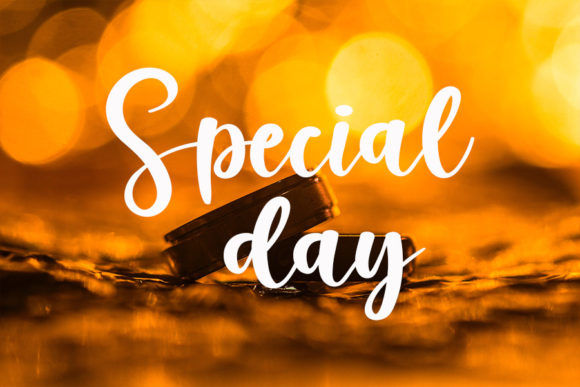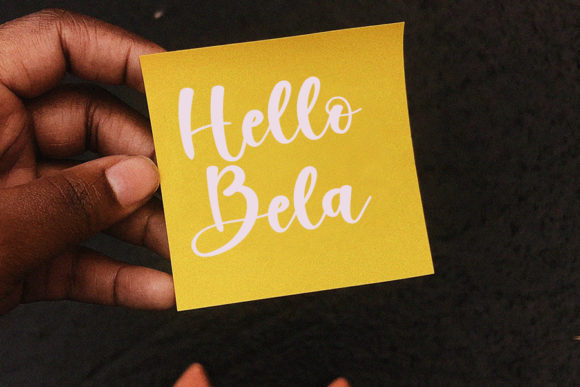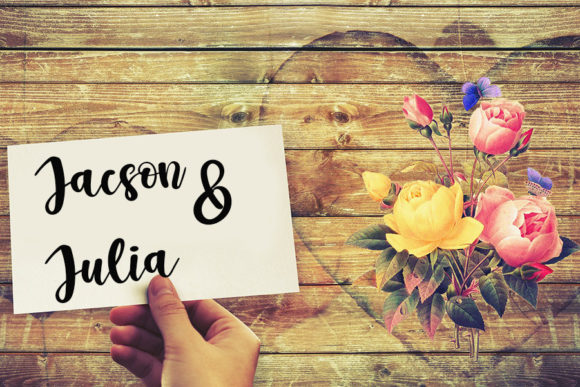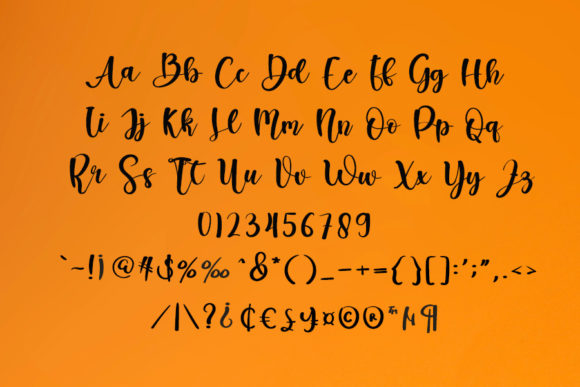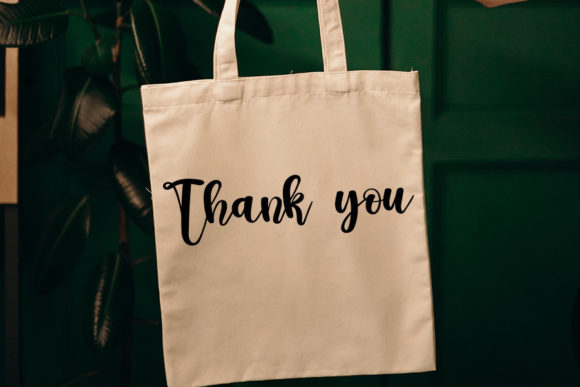
The Perfect Match for Your Next Design Project
There’s nothing quite like the thrill of discovering a new font that sparks your creativity. It’s that moment when the perfect combination of style and functionality comes together, and suddenly, your design projects start to feel like a dream. You know, the kind of moment when you think, “This is it! This is the one!” For designers, finding that perfect font can be a game-changer, and that’s exactly what the Honeymoon Font aims to be.
With its unique blend of classic calligraphy and modern flair, the Honeymoon Font is designed to become a true favorite among designers. Its friendly, approachable feel makes it perfect for a wide range of projects, from wedding invitations to greeting cards and more. Whether you’re a seasoned pro or just starting out, the Honeymoon Font is a valuable addition to any designer’s toolkit.
Honeymoon Font Key Features
- Font Family: Honeymoon Font is a unique, hand-drawn script font.
- Unique Characteristics: Features elegant, cursive lines and subtle flourishes, perfect for creating romantic and whimsical designs.
- Character Set: Includes a comprehensive set of characters, including uppercase and lowercase letters, numbers, and punctuation marks.
Honeymoon Font Review
I recently had the chance to work with the Honeymoon font, and I must say it’s a unique addition to any design project. Here’s my honest review:
- Playful feel**: The Honeymoon font has a whimsical, handwritten quality that’s perfect for adding a touch of romance and personality to your designs.
- High legibility**: Despite its cursive nature, the font is surprisingly easy to read, even at smaller sizes.
- Customization options**: The font comes with a range of weights, styles, and ligatures, giving you plenty of flexibility to experiment with different looks.
- Limited font sizes**: While the font is legible at smaller sizes, it starts to lose its charm at very large sizes (think billboard-style posters).
- Not ideal for body text**: Due to its cursive nature, the font can be tiring to read in large blocks of text.
The Honeymoon font is a great choice for designers looking to add a touch of personality and whimsy to their projects. While it has some limitations, its unique feel and high legibility make it a great addition to any design toolkit.
Here are a few common use cases for Honeymoon Font:
- Wedding website design.
- Wedding photography and videography branding.
Alternatives to Honeymoon Font
Playfair Display is a luxurious and elegant serif font, perfect for high-end designs, such as wedding invitations, luxury brand logos, and fine art prints. It features intricate details and a classic feel, making it an ideal choice for designers who want to convey sophistication and refinement.
Compared to Honeymoon Font, Playfair Display is more formal and elegant, while Honeymoon Font is more whimsical and playful. Playfair Display is better suited for formal events and luxury brands, whereas Honeymoon Font is more versatile and can be used for various occasions.
Great Vibes is a modern and elegant script font, ideal for creative and artistic designs, such as wedding invitations, social media graphics, and editorial layouts. It features a flowing and dynamic feel, making it perfect for designers who want to add a touch of personality and whimsy to their work.
Compared to Honeymoon Font, Great Vibes is more modern and dynamic, while Honeymoon Font is more vintage and playful. Great Vibes is better suited for creative and artistic projects, whereas Honeymoon Font is more versatile and can be used for various occasions.